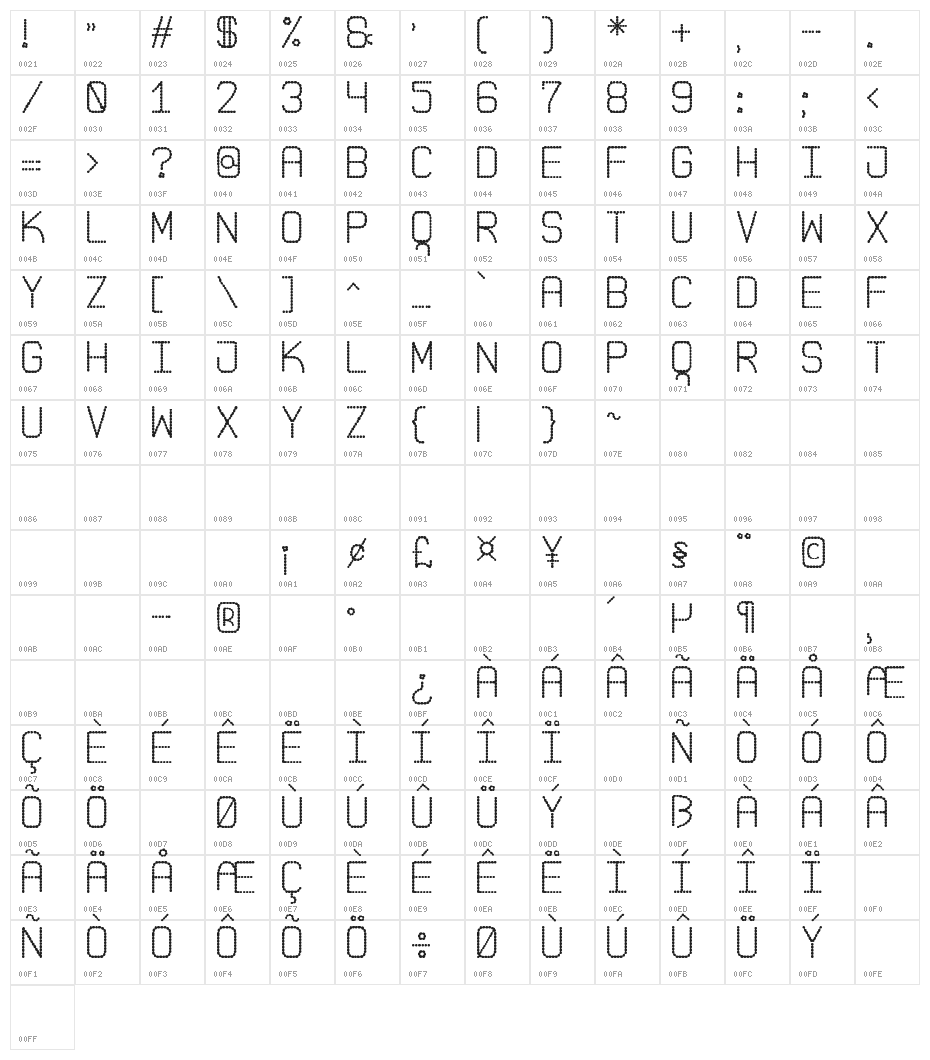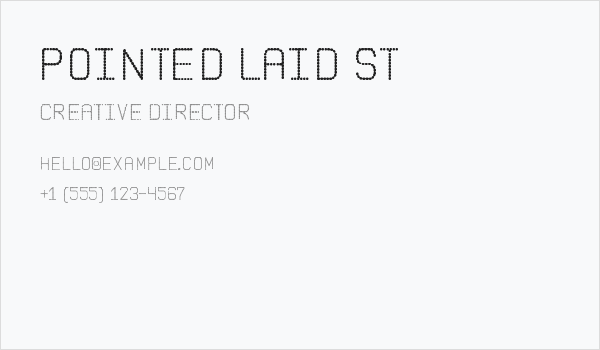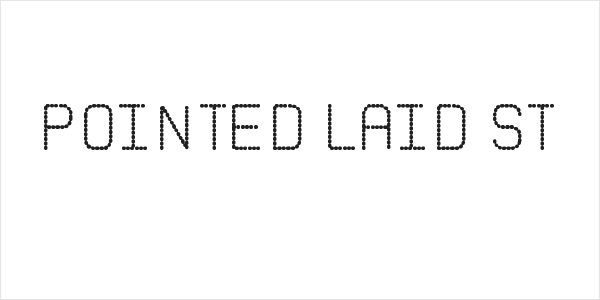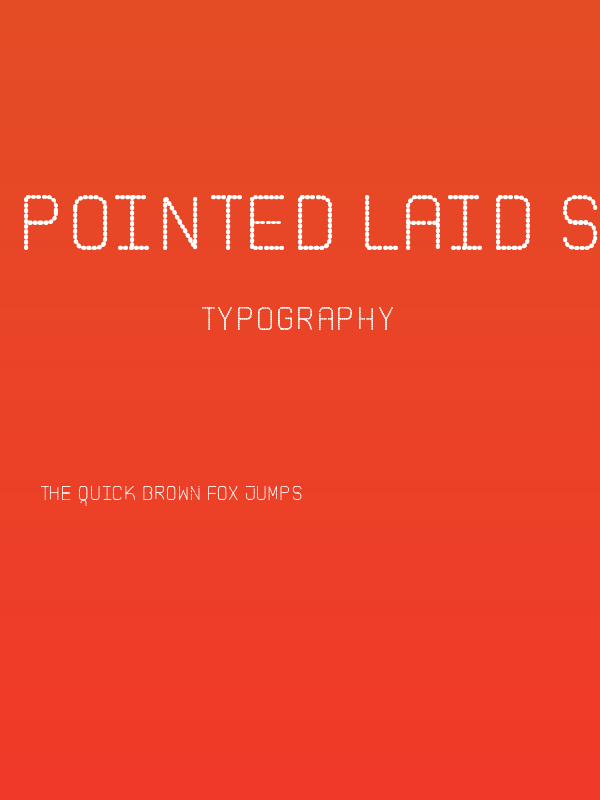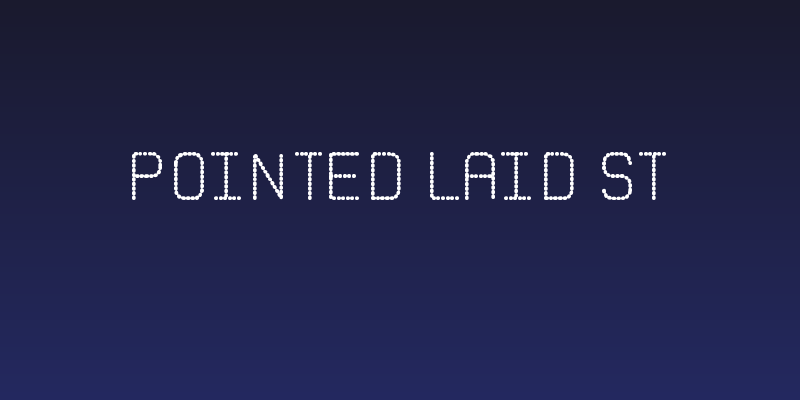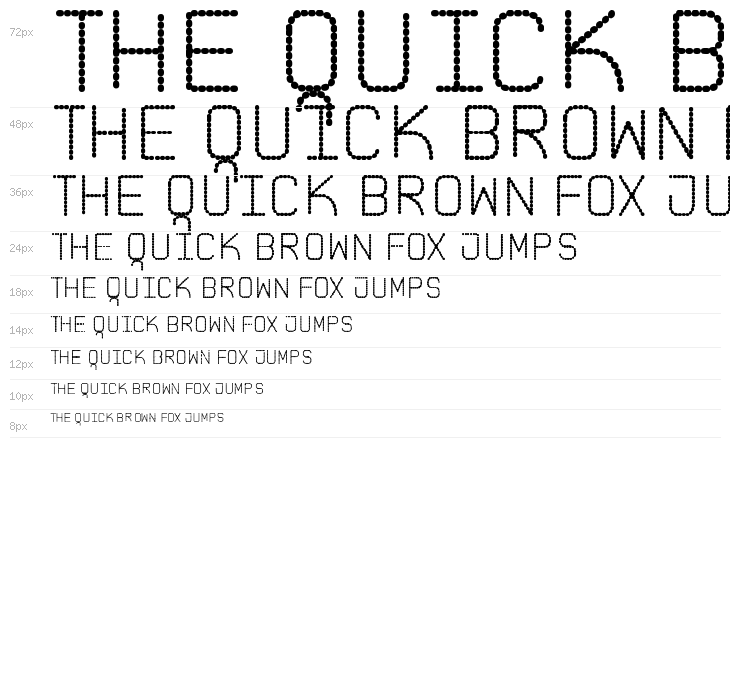
Pointed Laid St Font
Pointed Laid St Description
This font features a unique dotted design, where each character is composed of small, evenly spaced dots. The style is geometric and modern, offering a playful yet structured appearance. The uppercase and lowercase letters maintain a consistent height, providing a uniform look across the text. Numbers and special characters are crafted with the same dotted pattern, ensuring cohesion throughout. The font's distinct style makes it stand out, while its clarity ensures readability.
| Use Case | Logos, Headlines, Digital displays |
| Proposed Projects | Ideal for digital displays, tech-themed projects, children's books, or creative branding. |